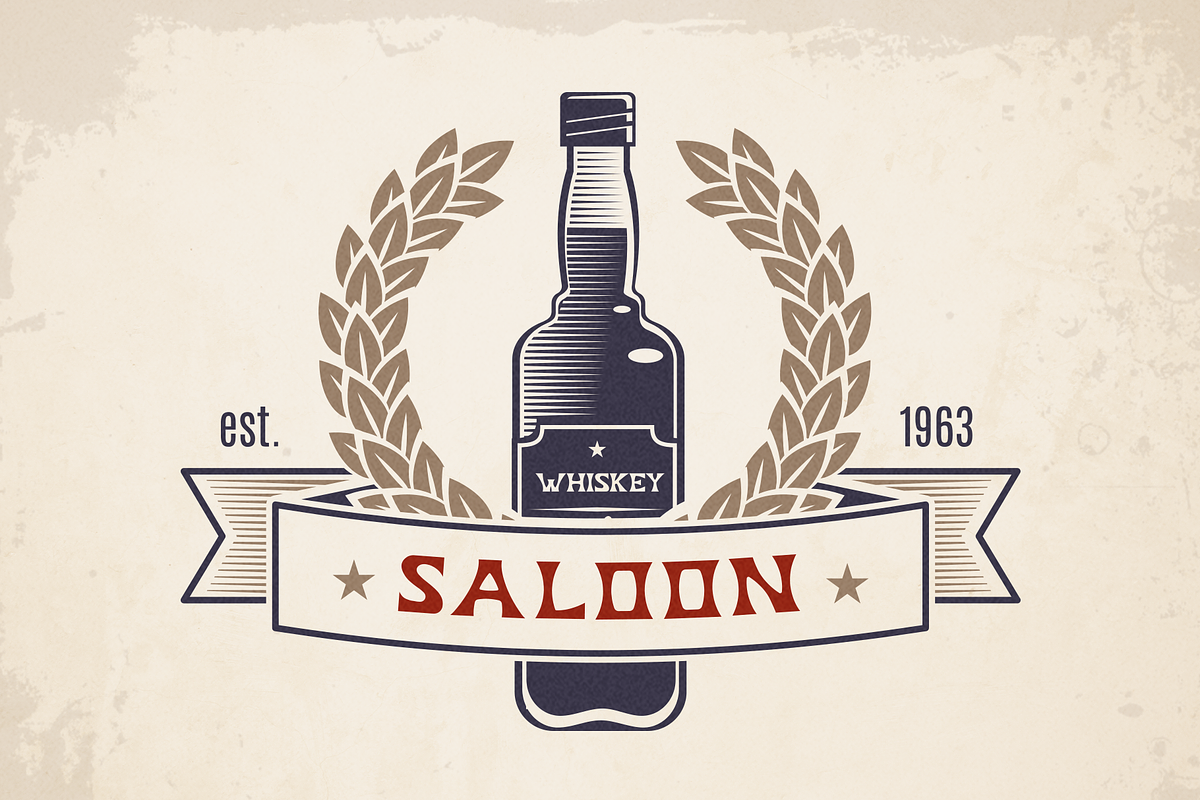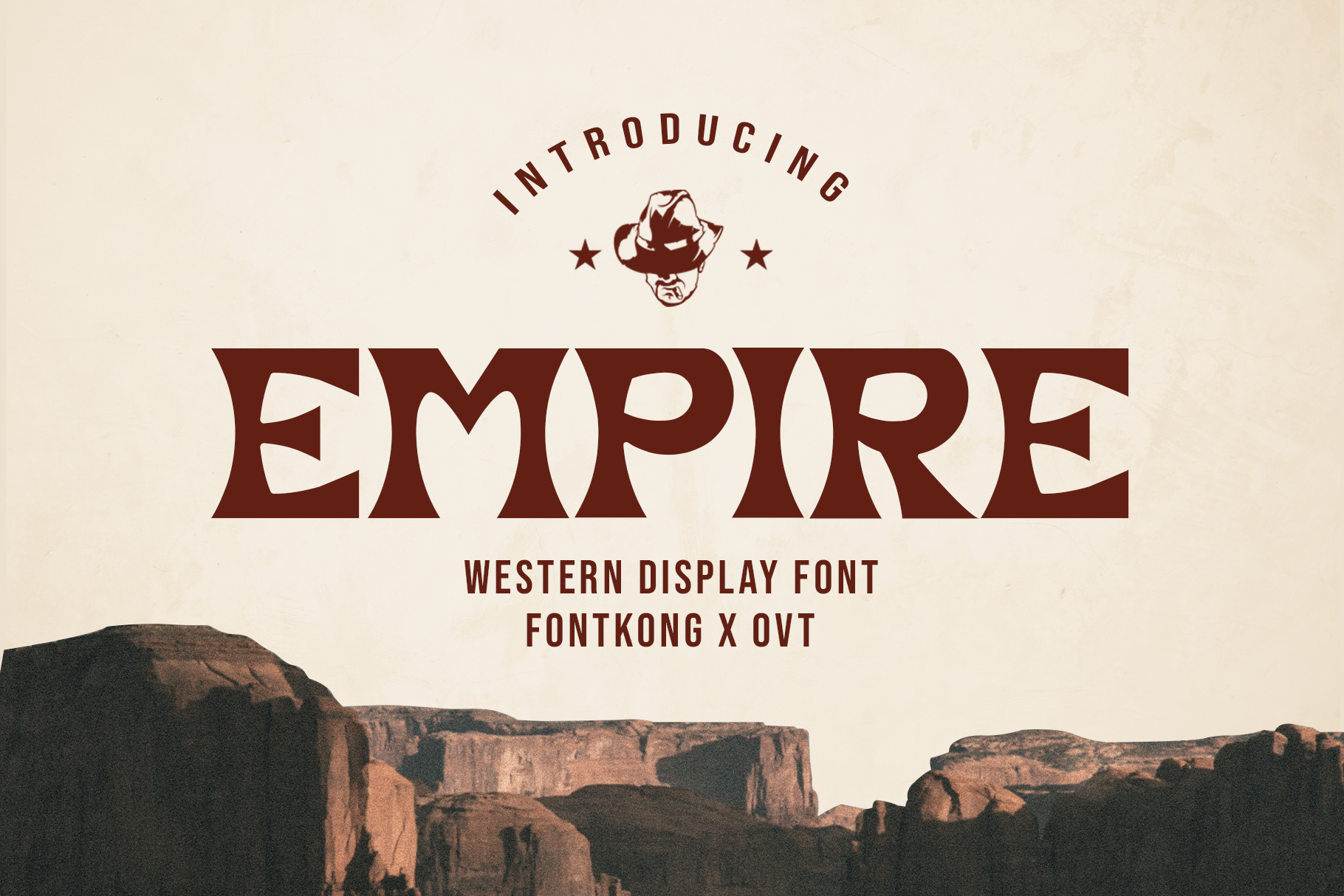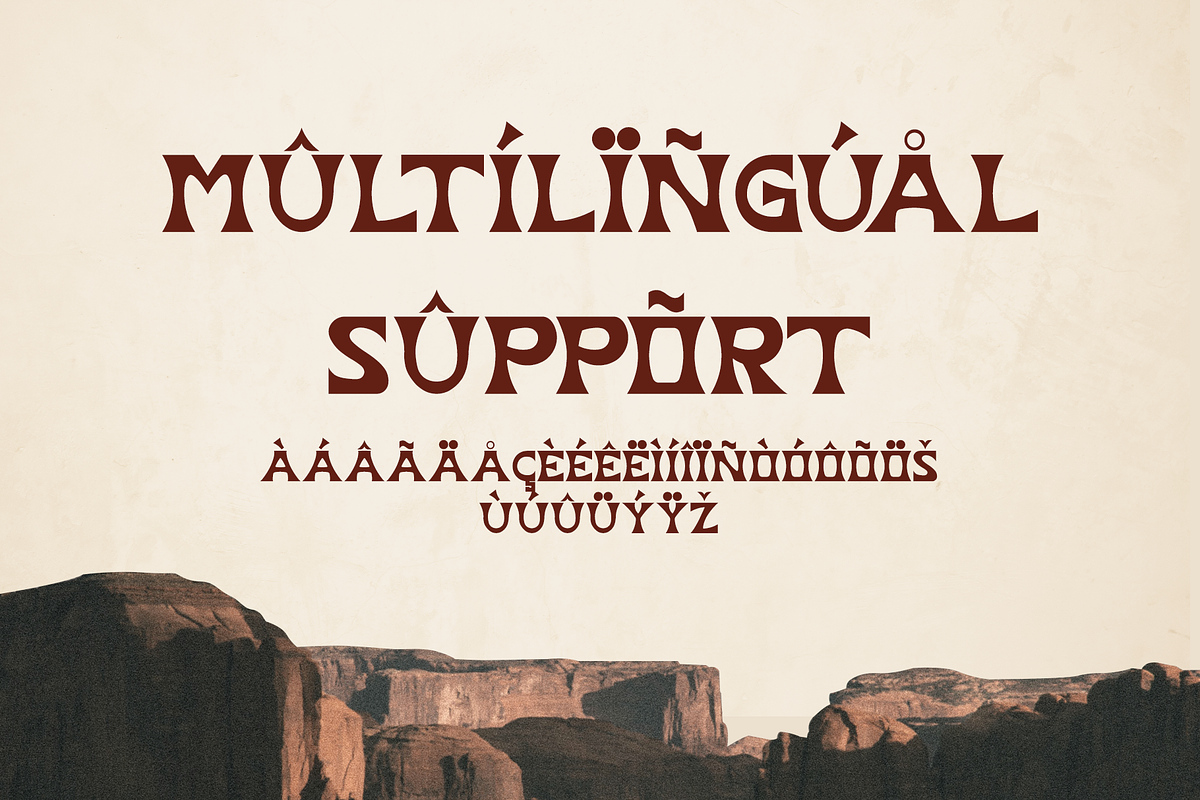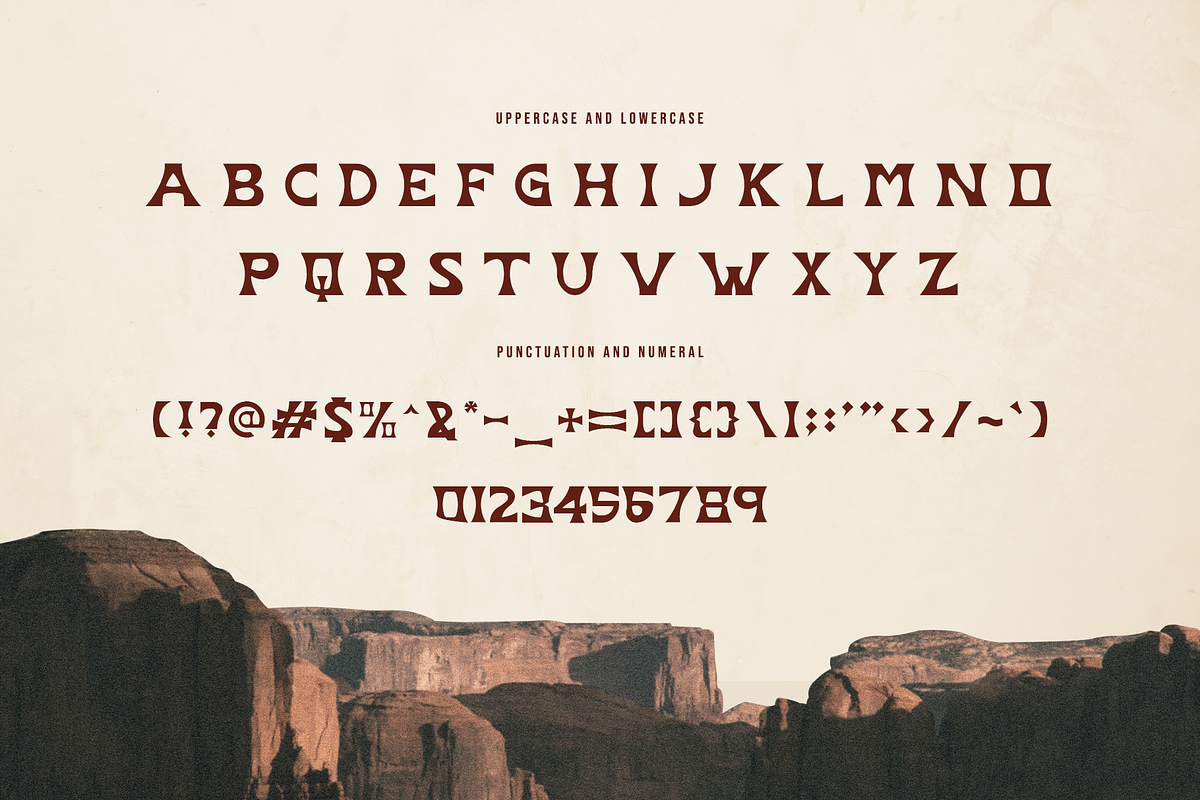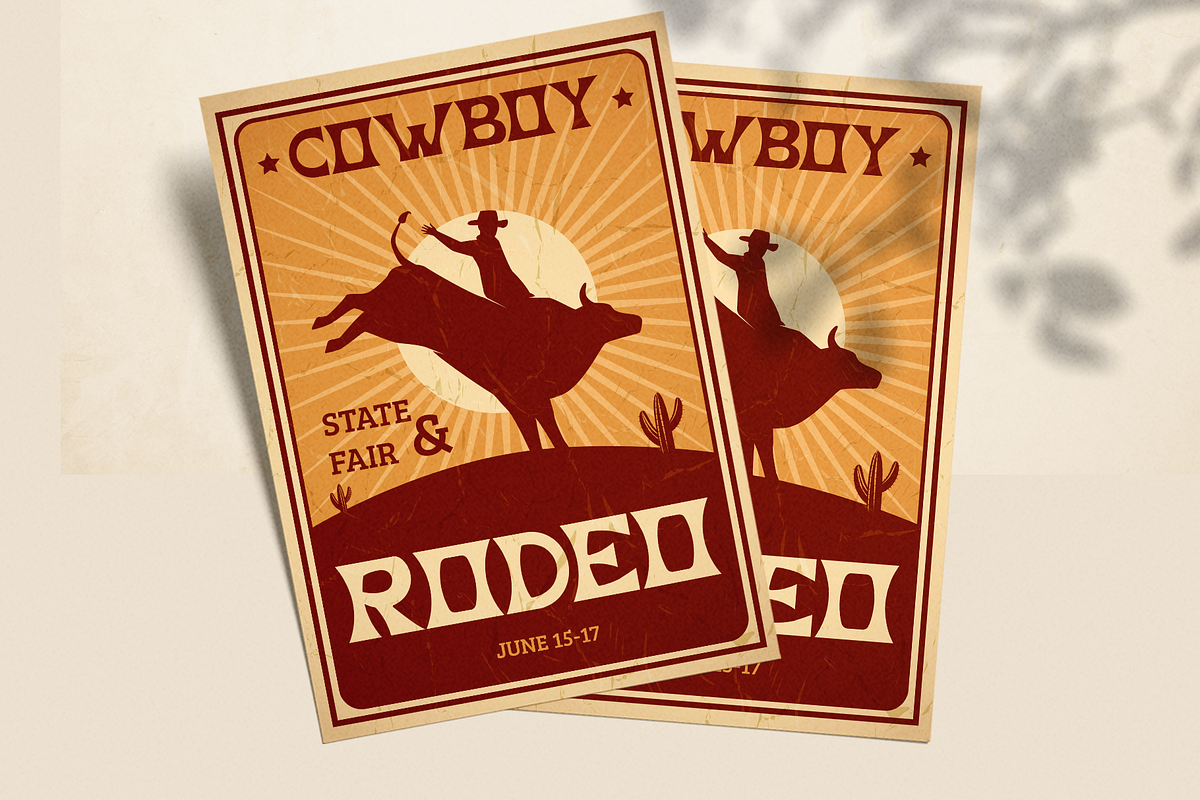
Empire - Western Display Font
Introducing "Empire," a Western display font that brings the rugged spirit and bold heritage of the Wild West to your design projects. Perfect for graphic designers, branding experts, and creatives seeking a distinctive typeface, Empire offers a striking design that evokes the iconic charm of Western aesthetics.
Ideal for posters, logos, signage, merchandise, and event branding, Empire’s robust and characterful letters provide a strong visual impact. Each letter is meticulously crafted to reflect the authentic look of traditional Western typography, ensuring your designs stand out with a powerful and unmistakable style.
The "Empire" font includes a complete set of uppercase and lowercase letters, numbers, punctuation marks, and special characters. This comprehensive set ensures seamless integration into various design projects, from dynamic event posters to standout brand identities.
Capture the essence of the Wild West with Empire, the Western display font that adds bold heritage and unmistakable style to every project.